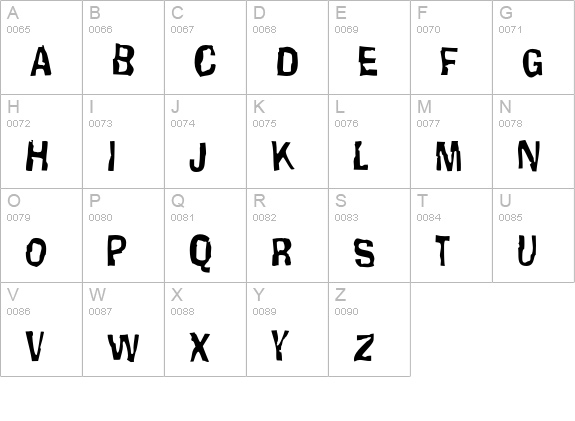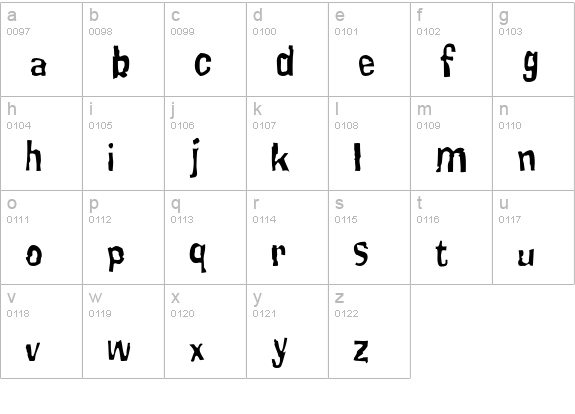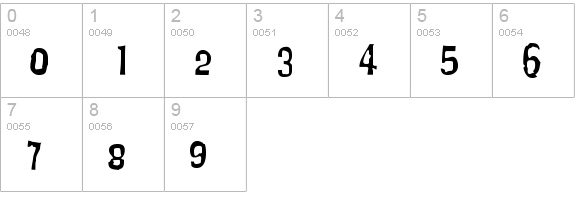
Knucklehead Font Details
Knucklehead font is a bold and playful typeface that exudes a sense of fun and whimsy. Its distinctive hand-drawn style gives a unique character to any design, making it perfect for projects that require a touch of personality and creativity. With its chunky letters and uneven edges, Knucklehead font adds a touch of charm and quirkiness to any text. The best part about Knucklehead font is that it is completely free to download at FontsMarket.com. This means that you can easily add this eye-catching font to your collection without breaking the bank. Whether you're working on a poster, logo, or any other design project, Knucklehead font is sure to make a statement and stand out from the crowd. So why wait? Download Knucklehead font today and let your creativity shine!